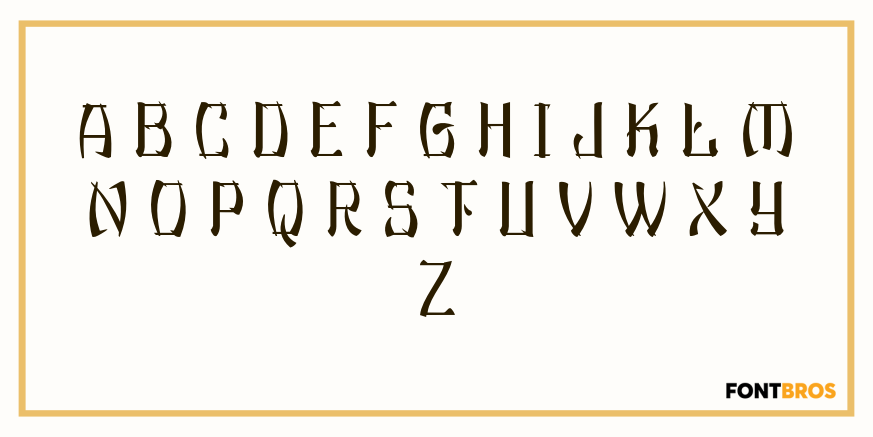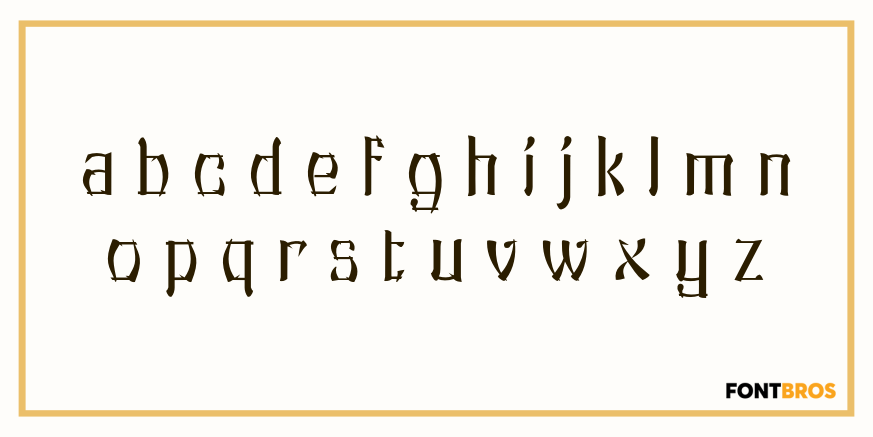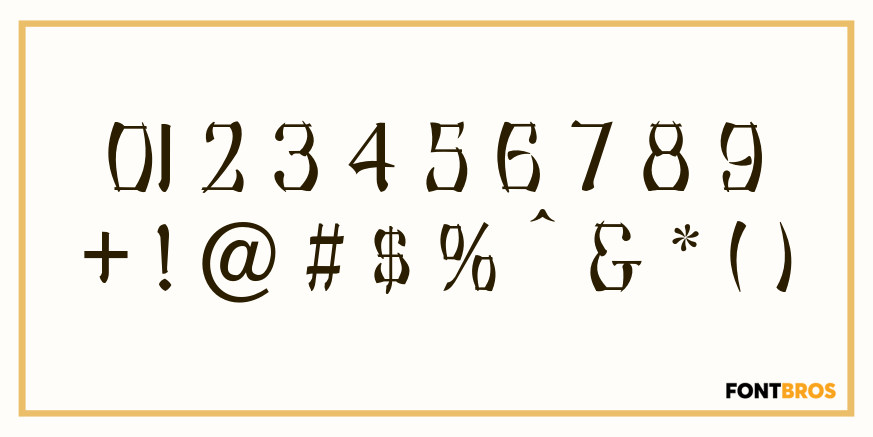
Emperor
Another design inspired by Chinese characters, but with a somewhat less obvious treatment than many.
Emperor includes 198 glyphs.
Emperor by Solotype